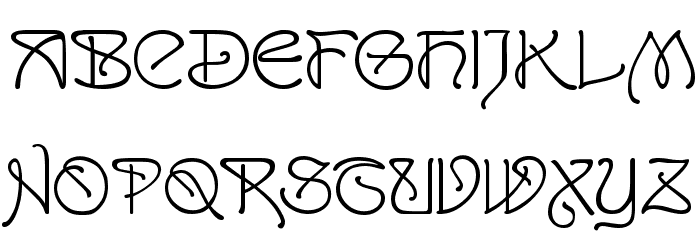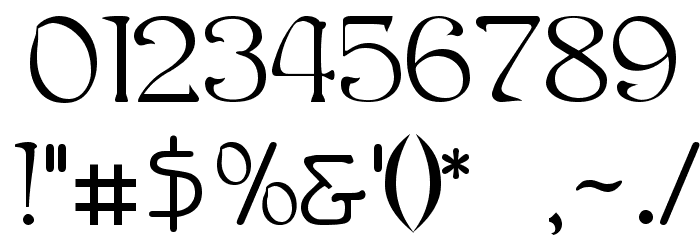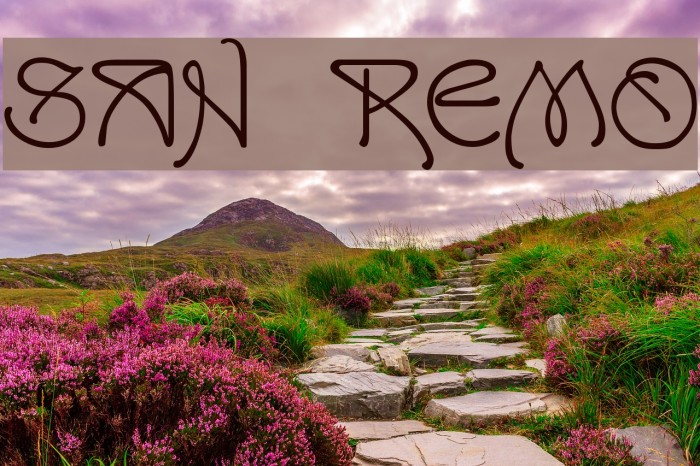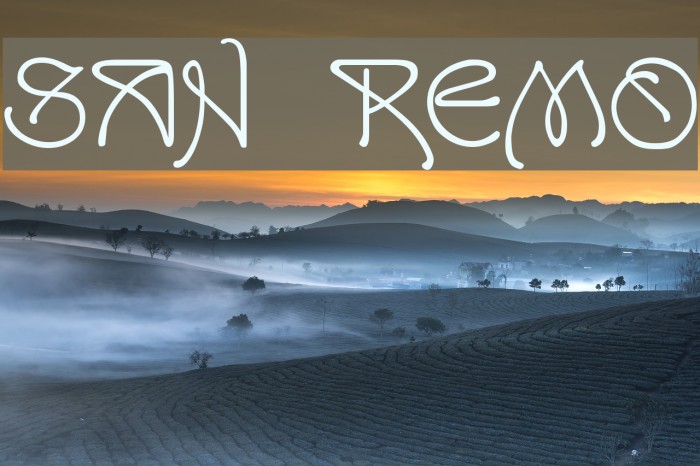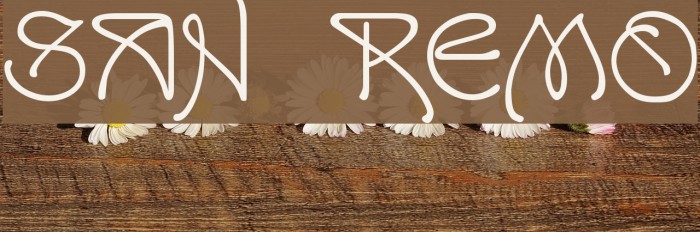
San Remo Font
This font features a unique and artistic design with a decorative flair. The characters are intricately styled with swirls and curves, giving them a whimsical and elegant appearance. The uppercase letters are particularly ornate, with each character exhibiting a distinct personality. The lowercase letters maintain the decorative theme, though they are slightly more subdued. The numerals are bold and maintain the same artistic style, ensuring consistency across the font. Special characters are also included, each designed to match the overall aesthetic. This font is ideal for projects that require a touch of elegance and creativity.
An artistic and decorative font with intricate swirls and curves.
- Proposed Projects: Ideal for wedding invitations, artistic posters, branding, and decorative headlines.
- Use Case: Headlines, Logos, Invitations